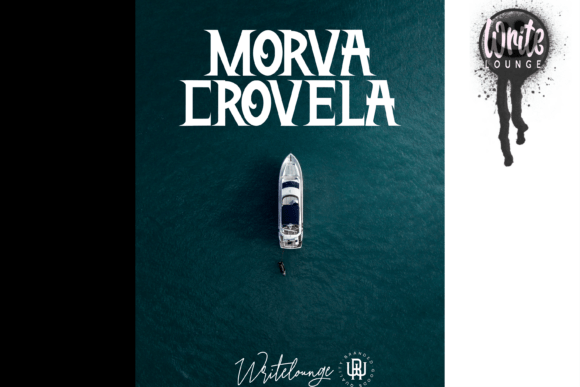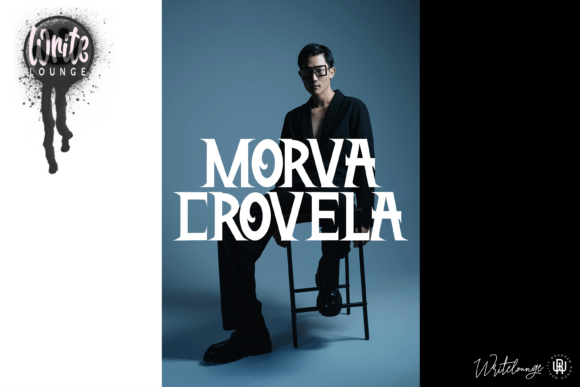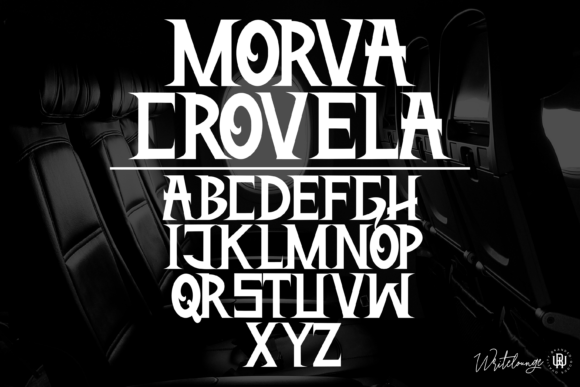
Introduction to Morva Crovela Font
You’ve spent hours pouring your heart and soul into a creative project, perfecting every detail from the color palette to the typography. But that one crucial element – the font – can make or break the entire design. You’re on the hunt for the perfect font to elevate your work and leave a lasting impression. That’s where Morva Crovela Font comes in – a bold luxury gothic serif font that exudes high-fashion elegance and dramatic editorial flair.
Whether you’re working on a magazine title, perfume packaging, or album cover, Morva Crovela Font delivers a powerful, premium look that stands out against any transparent background. This design resource is a must-have for designers looking to add a touch of sophistication and timeless style to their work. With its unique character shapes and refined curves, Morva Crovela Font gives every project a sense of exclusivity and aristocratic beauty, making it a valuable addition to any design arsenal.
Key Features of Morva Crovela Font
- High-quality design resource ideal for creative projects, offering a unique and stylish aesthetic.
- Includes a comprehensive character set, covering a wide range of languages and symbols, making it a versatile design resource.
- Available in a single weight, ensuring consistency and cohesion across your design projects.
- Designed with high resolution in mind, ensuring crisp and clear typography in both print and digital applications.
Honest Review: Morva Crovela Font
I recently had the chance to work with the Morva Crovela Font, and I must say it’s been a game-changer for my creative projects. This font is perfect for designers who want a unique and stylish look without breaking the bank.
What works well is the high-quality design of the font. It’s crisp, clean, and easy to read. The transparent background option is also a great feature, making it easy to place the font on any image or background. The free download option is also a huge plus, as it allows designers to access this great resource without any additional costs.
Here are some of the key features of the Morva Crovela Font:
- High-quality design for a unique and stylish look
- Transparent background option for easy placement
- Wide range of font styles and weights
Tips for Getting the Most Out of Morva Crovela Font
Experiment with different font sizes, styles, and colors to create a unique design. Use the transparent background feature to add depth and interest to your design.
The Morva Crovela Font is ideal for creative projects that require a high-quality, unique font. Common use cases include graphic design, digital art, and branding materials.